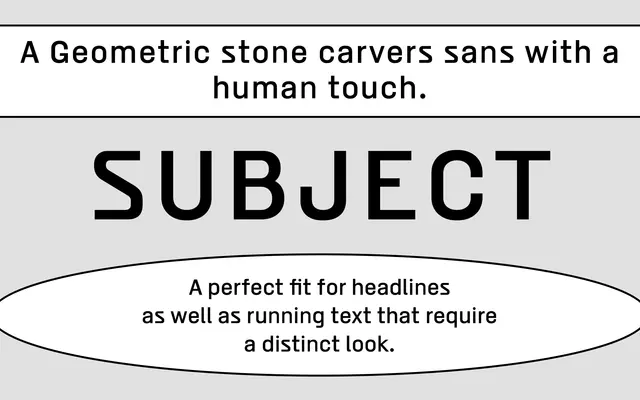
SUBJECT specimen from A2-Type
A geometric sans drawn from hand-carved stone lettering found in the French mountains, recast as a contemporary grotesque with subtle humanist detail.
Taking its cue from carved mountain stonework rather than the drawing board, SUBJECT sits somewhere between geometric precision and the warmth of a hand-cut letter. Six weights run from Light to Black with no italics, giving it a restrained palette suited to identity and editorial use. The unusual source material lends it details that distinguish it from standard geometric grotesques without making it eccentric.
Described as a geometric sans with grotesque qualities, drawing on hand-carved stone lettering for its source material while presenting a contemporary, slightly humanised form.